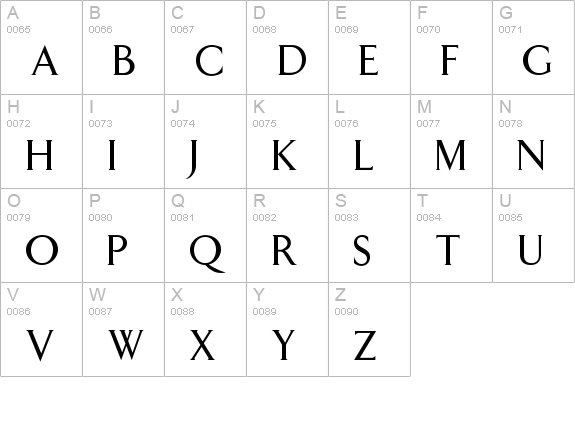
ArrowFont is a modern and stylish font that exudes elegance and sophistication. With its sleek lines and sharp edges, this font is perfect for adding a touch of contemporary flair to any project. Whether you are designing a logo, creating a poster, or crafting a website, ArrowFont is sure to make a bold statement. The best part? ArrowFont is available for free download at FontsMarket.com. You can easily access this versatile font and use it in your designs without any hassle. Don't miss out on the opportunity to elevate your projects with the sleek and dynamic ArrowFont – get your hands on it today!